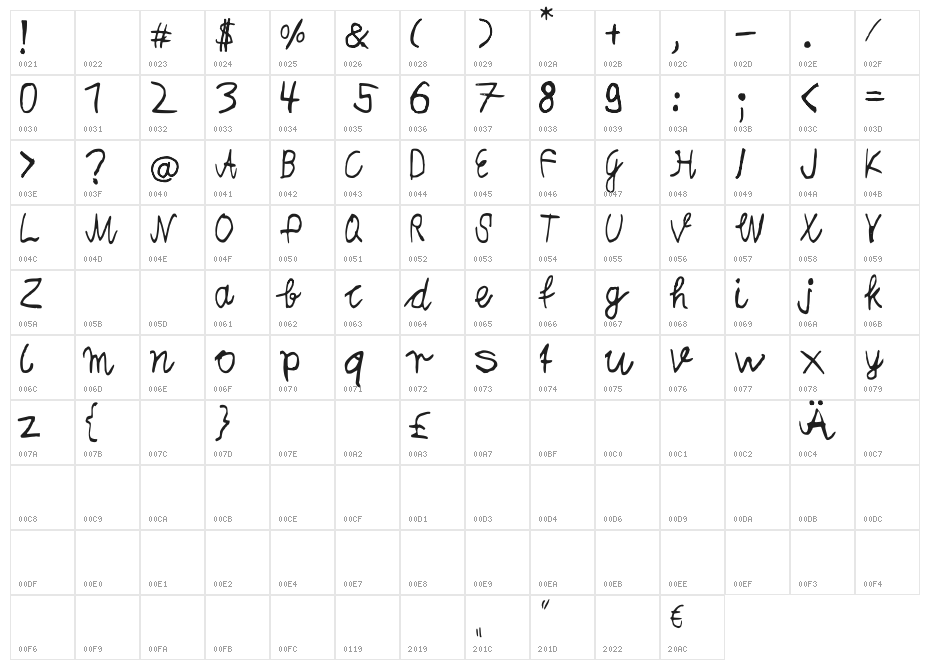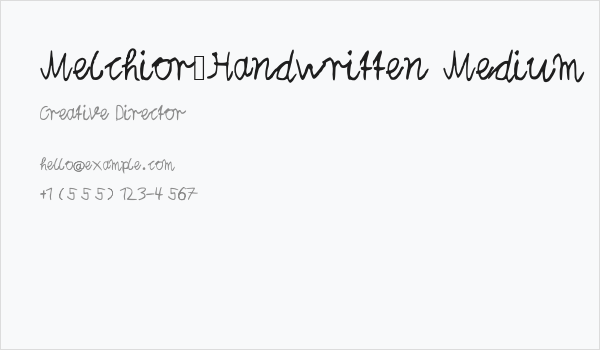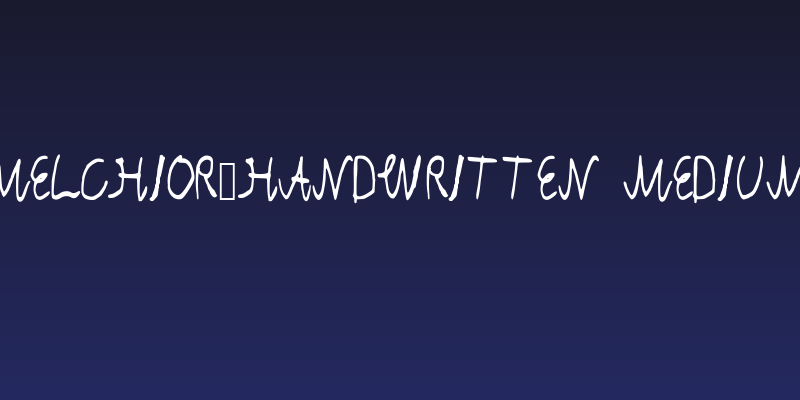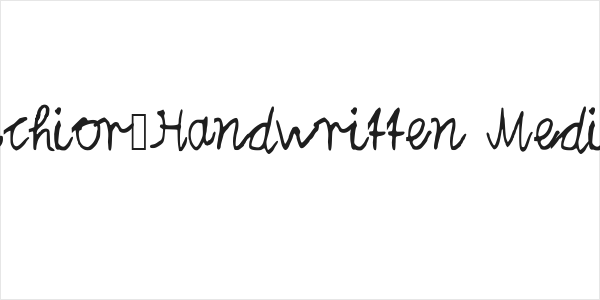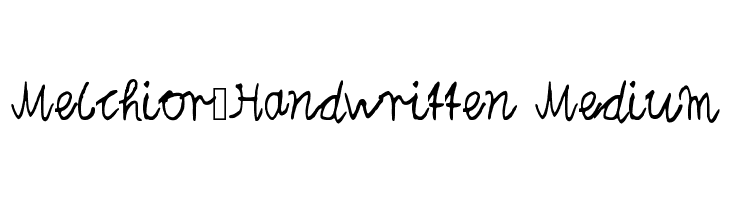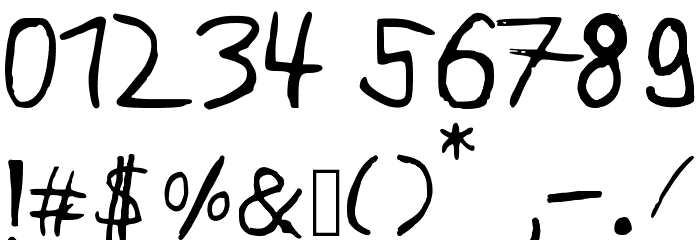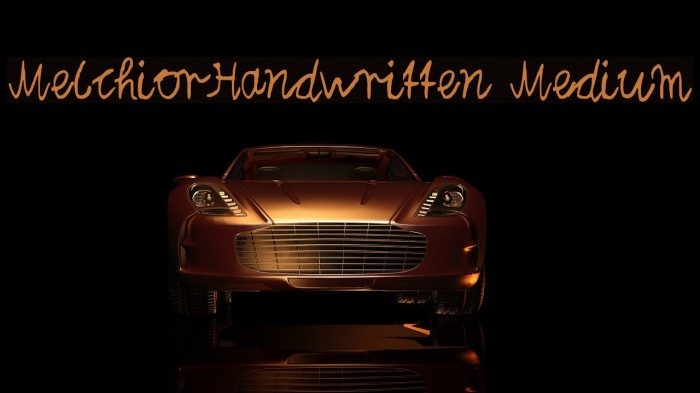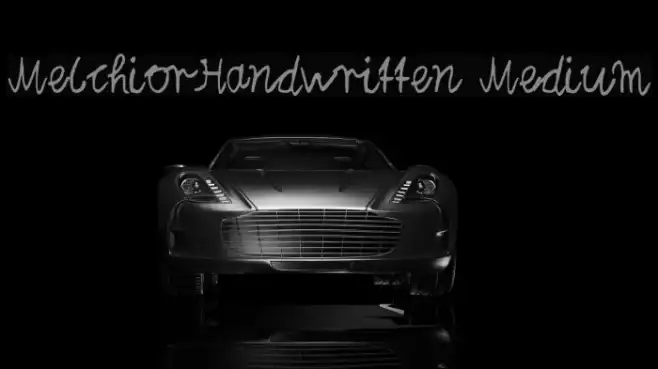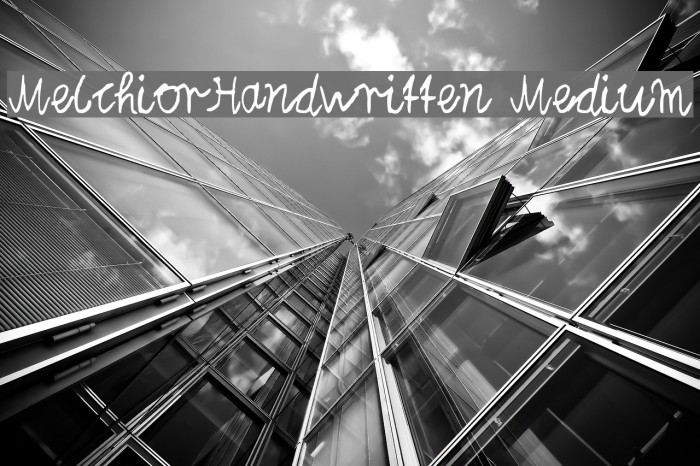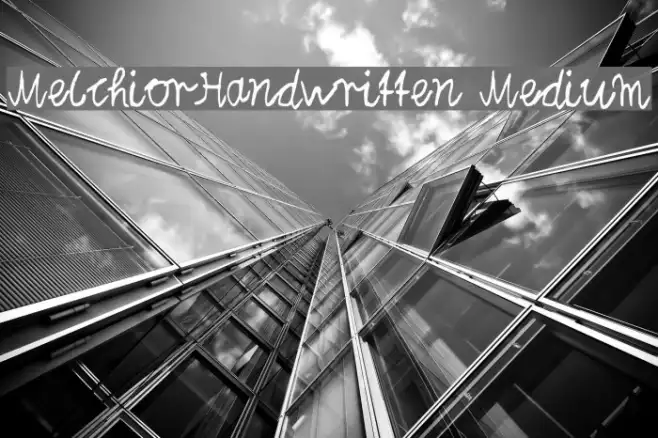
Melchior_Handwritten Medium Font
Melchior_Handwritten Medium Description
This font features a lively and expressive handwritten style, characterized by its fluid and dynamic strokes. The uppercase letters exhibit a playful yet structured form, while the lowercase letters maintain a consistent flow, enhancing readability. The numbers and special characters are crafted with the same energetic flair, making them stand out. The overall appearance is casual and approachable, suitable for projects that require a personal touch. Its medium weight provides a balanced presence, neither too bold nor too light, making it versatile for various design needs.
| Proposed Projects | Ideal for greeting cards, invitations, personal branding, and creative projects that require a personal touch. |